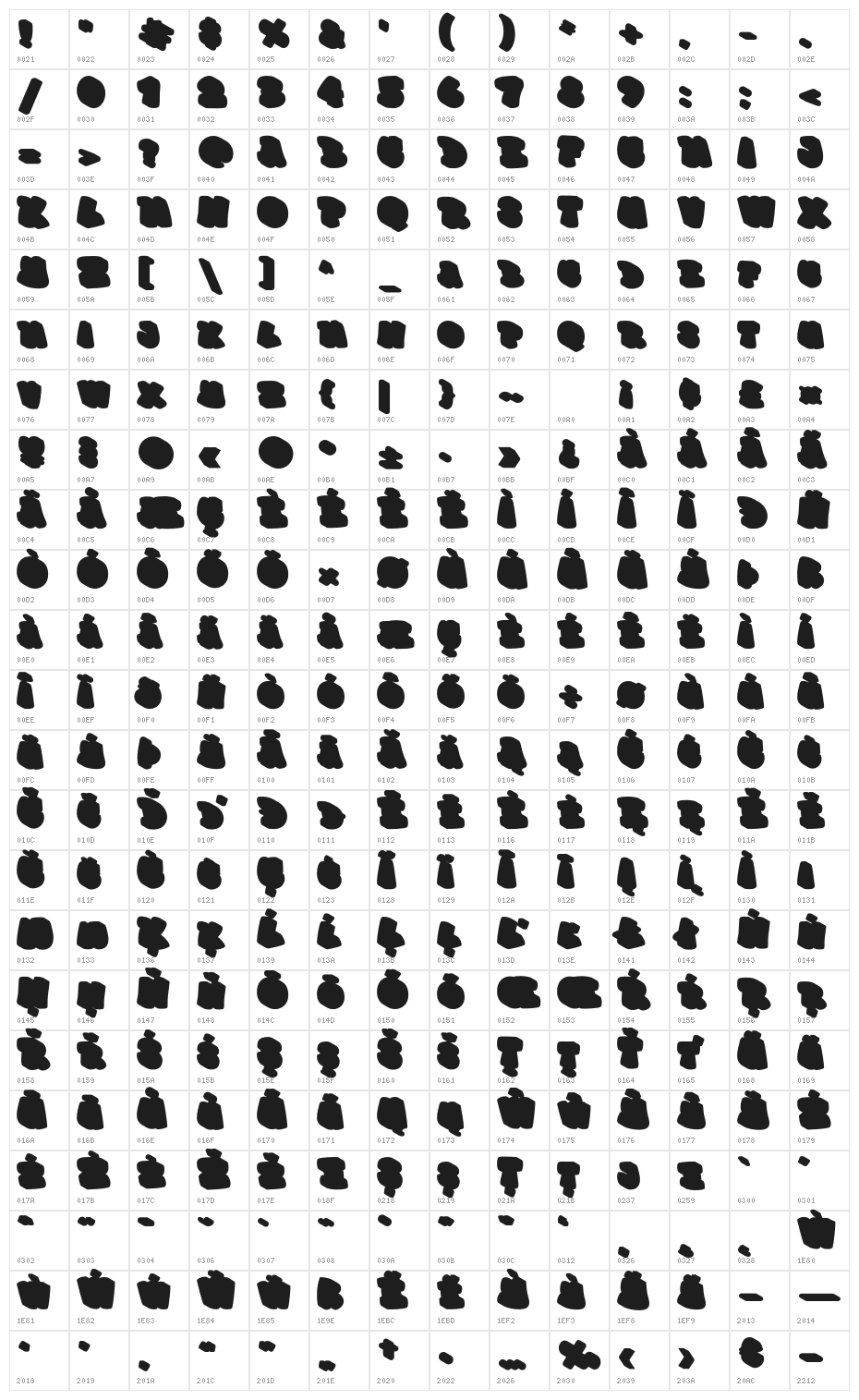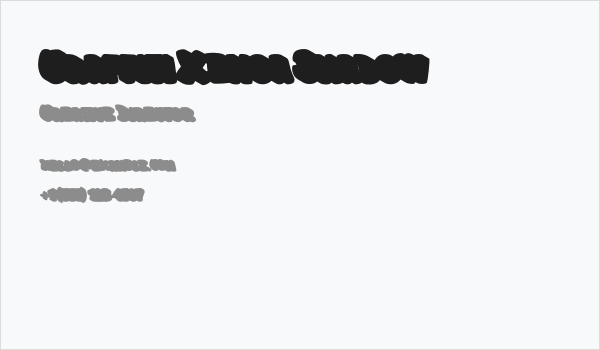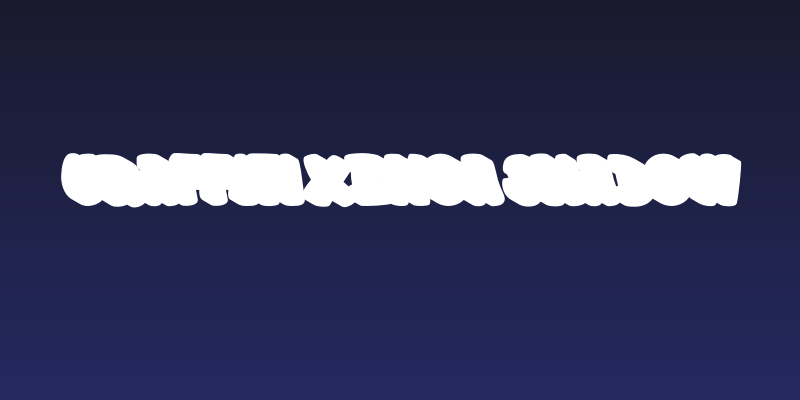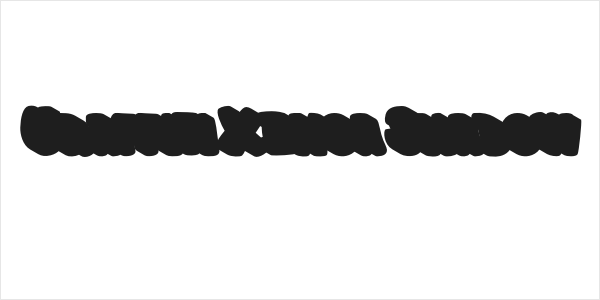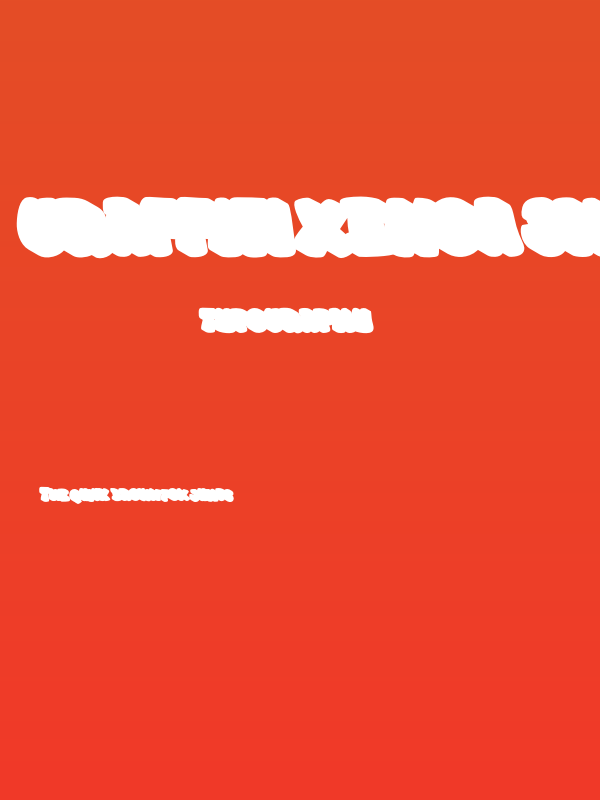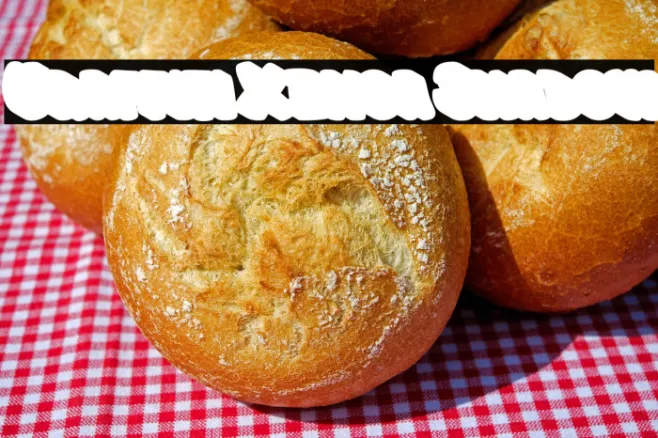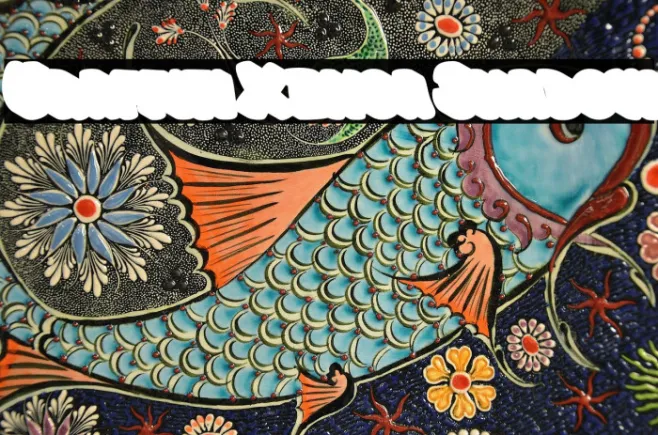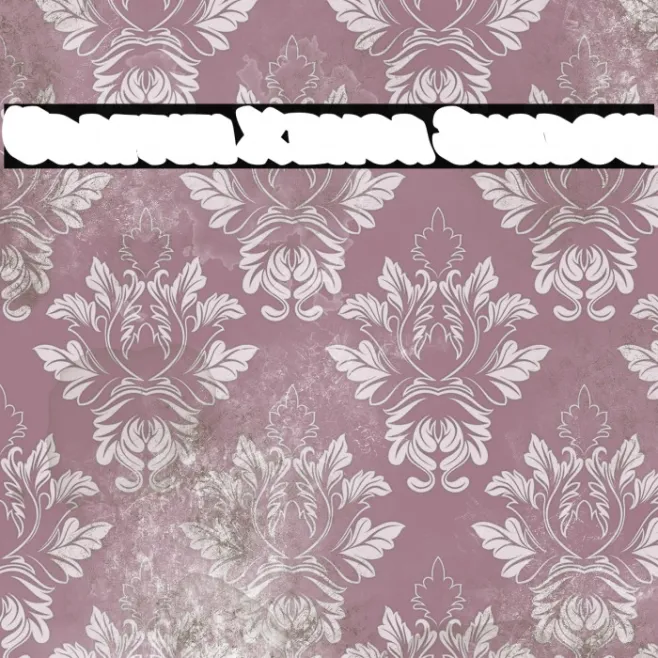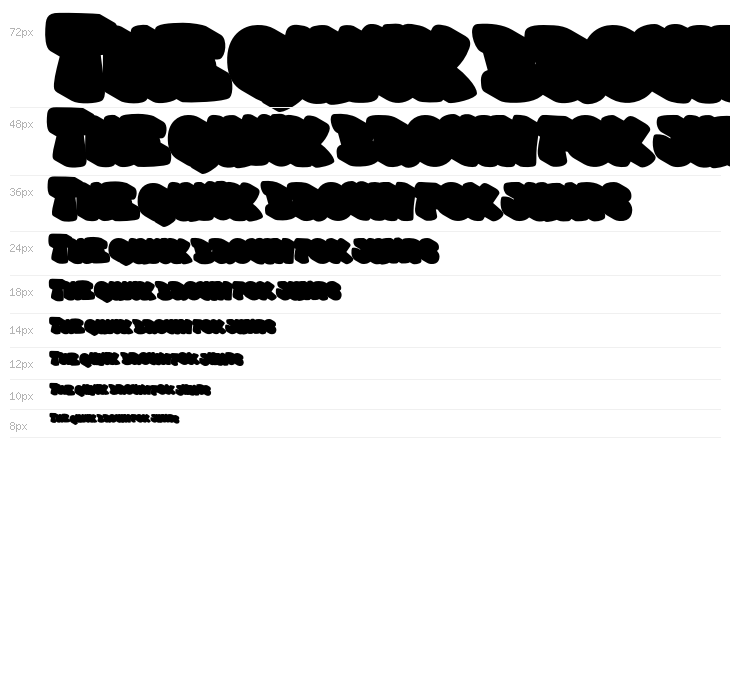
Graffiti Xenoa Shadow Font
Graffiti Xenoa Shadow Description
This font features a bold and dynamic graffiti style, characterized by thick, shadowed letters that create a sense of depth and movement. The exaggerated curves and rounded edges give it a playful yet edgy appearance, making it stand out in any design. The letters are tightly spaced, enhancing the compact and impactful look. The font's shadow effect adds a three-dimensional quality, making it ideal for eye-catching designs. Its unique style is perfect for projects that require a strong urban or street art vibe.
| Overall Style | Urban, Edgy, Playful |
| Use Case | Logos, Posters, Headlines |
| Proposed Projects | Ideal for street art-inspired designs, urban-themed posters, music album covers, and edgy branding projects. |